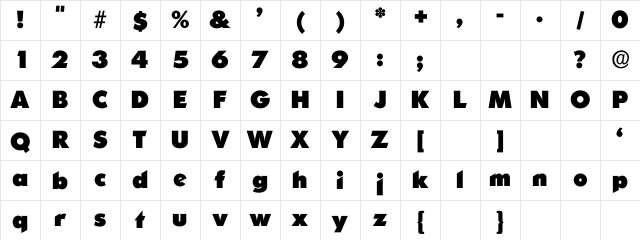
NightClubHeavy Regular
Design Context for NightClubHeavy
NightClubHeavy is a composed and adaptable typeface that performs quietly and consistently across a wide range of design contexts.
Pro Tip: Use NightClubHeavy in both headline and body roles to test its range before committing to a single application.